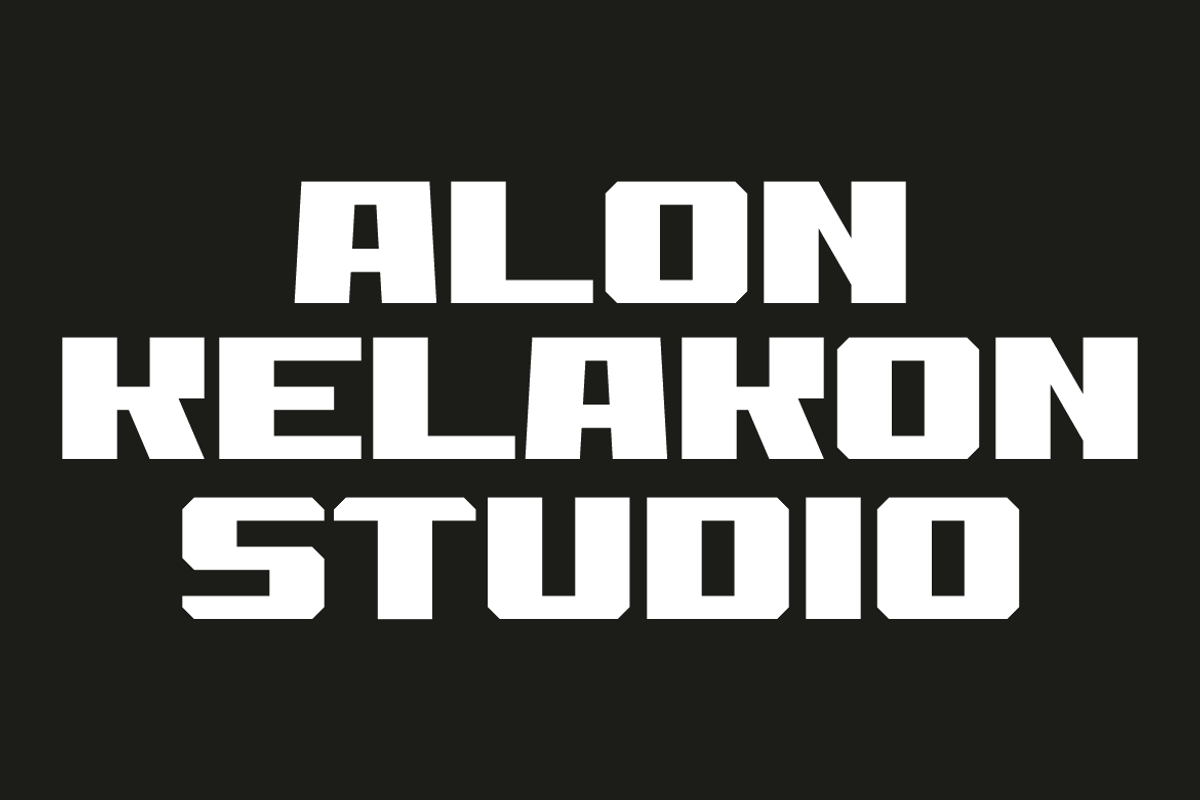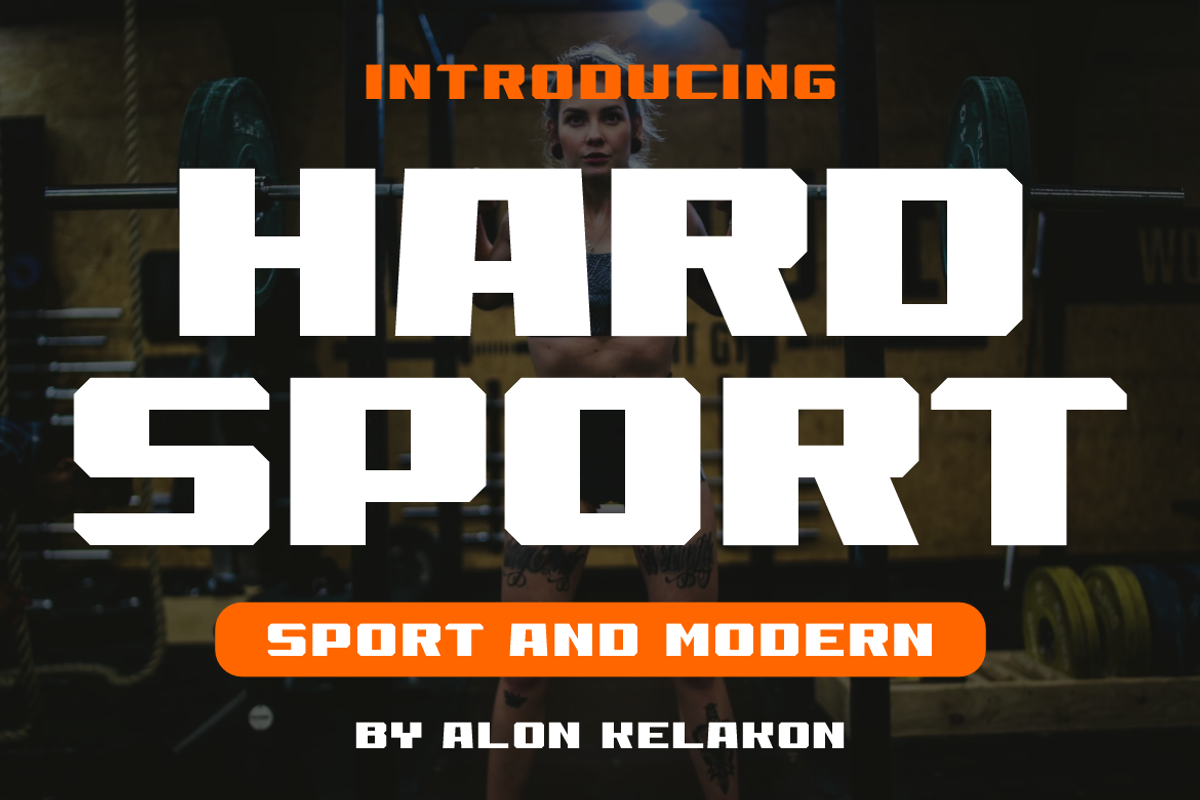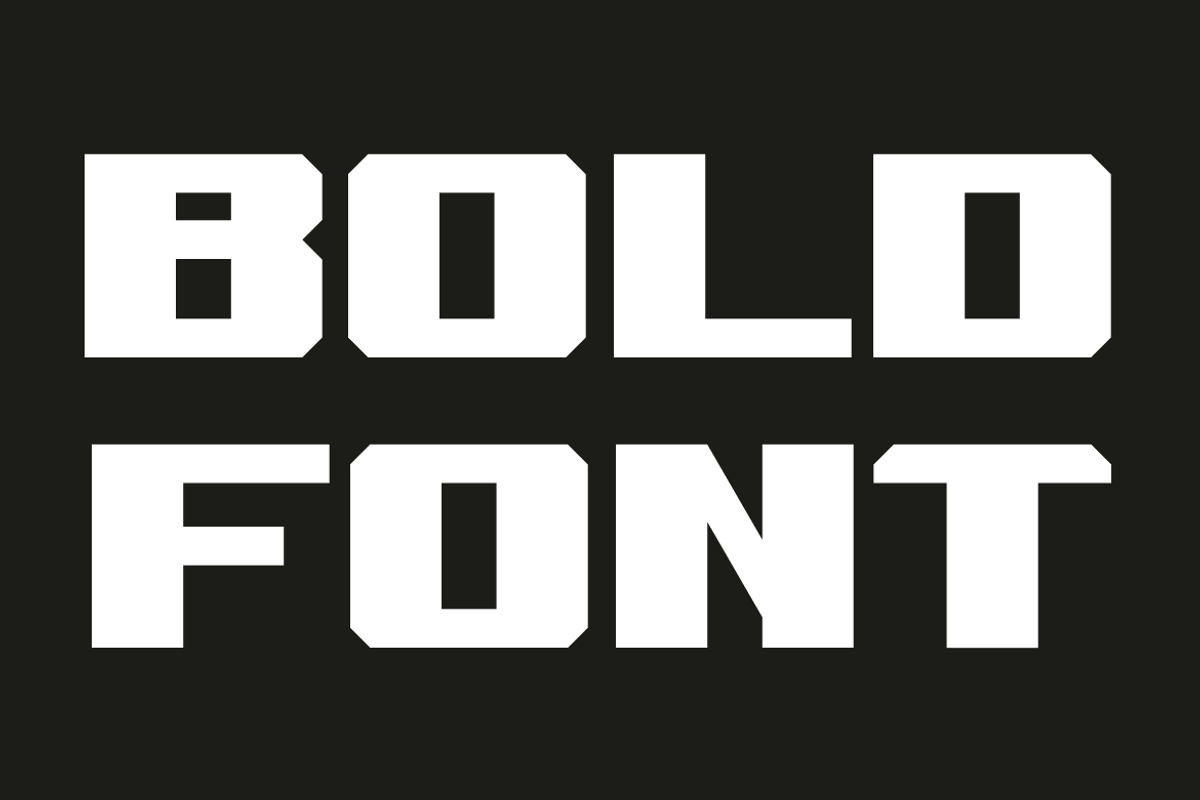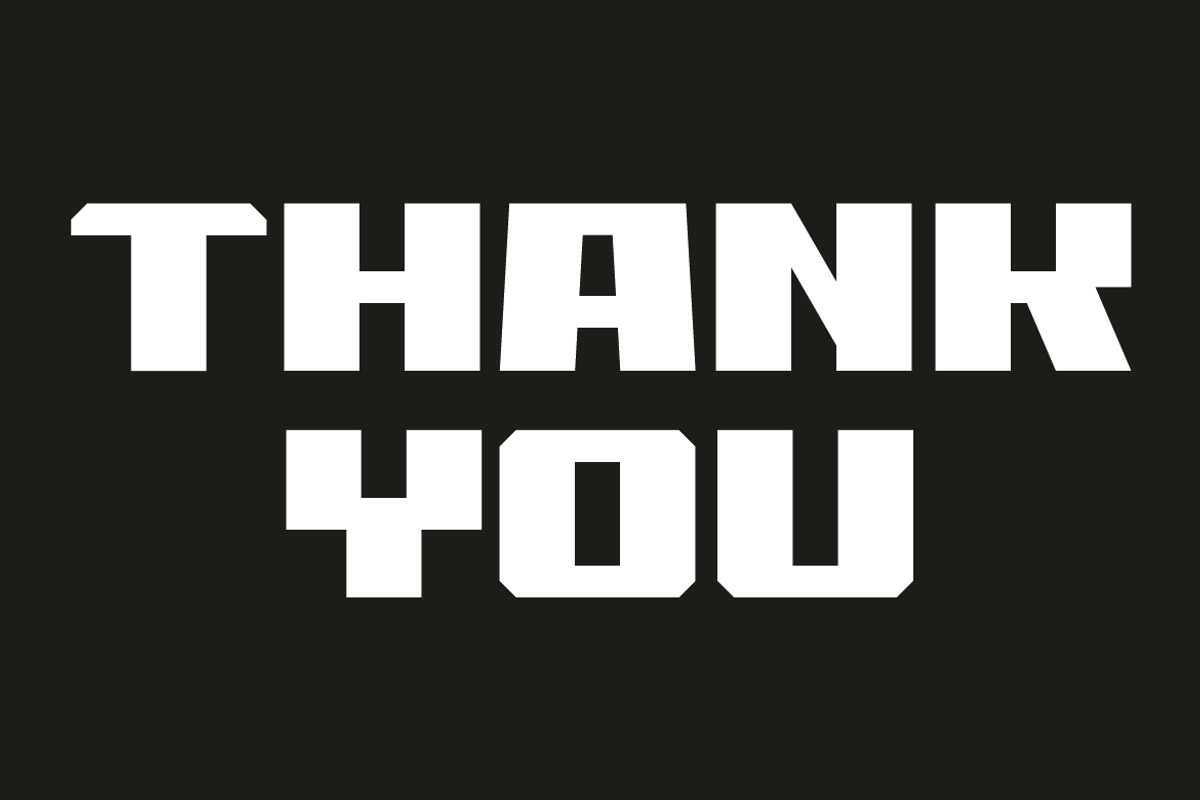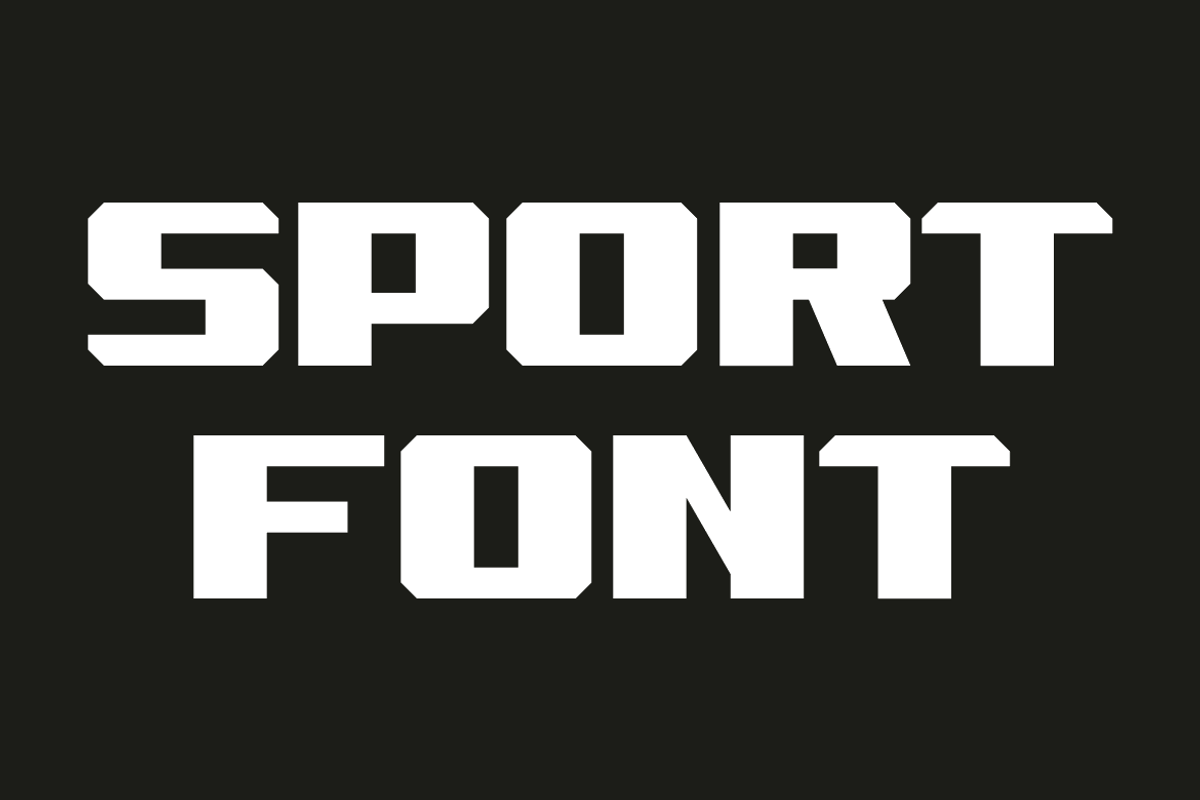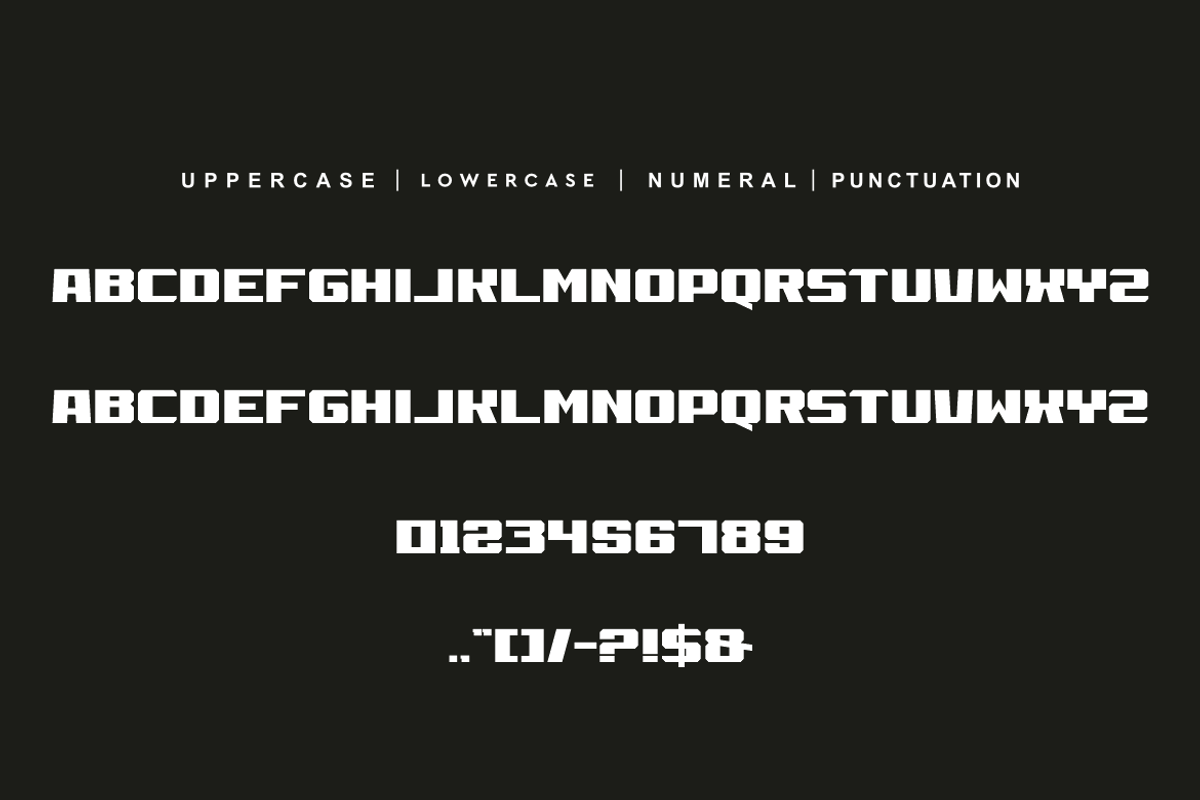
Hard Sport
Hard Sport Font is unique . Ready to use for your design like labeling, movie sceen, poster, movie title, gigs, album covers, logos, and much more.